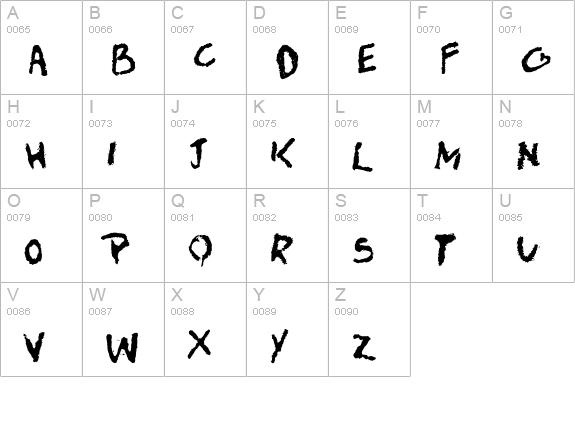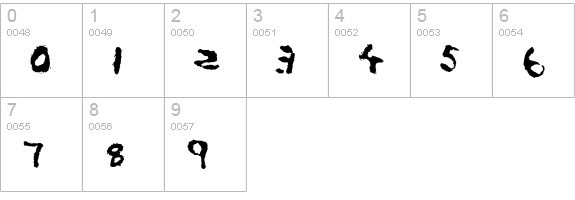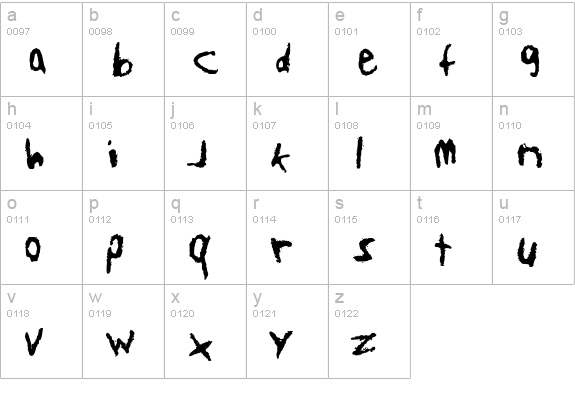
teen spirit Font Details
Introducing Teen Spirit Font, a vibrant and energetic typeface that perfectly captures the spirit of youth. This font is designed with a rebellious and edgy aesthetic, making it the ideal choice for any project that needs to convey a sense of youthful energy and vitality. With its bold and dynamic letterforms, Teen Spirit Font effortlessly combines a modern, urban vibe with a touch of playful charm. Its unique design elements, such as slightly exaggerated proportions and stylish swashes, add an extra layer of personality to your designs. But what sets Teen Spirit Font apart is not just its captivating design, but also the fact that it is free! Yes, you read that right. This incredible font is freely available to download at FontsMarket.com. Whether you're a student working on a school project, a designer creating a poster, or a social media enthusiast looking to spice up your posts, Teen Spirit Font is here to help you make a bold statement without breaking the bank. With its extensive character set, Teen Spirit Font is versatile and can be used in a wide range of design projects. From album covers to t-shirt designs, from website headers to social media graphics, this font will add a youthful and rebellious touch to any creative endeavor. So why wait? Embrace the free-spirited nature of Teen Spirit Font and let your creativity run wild. Download it now at FontsMarket.com and bring a fresh, energetic vibe to your designs.